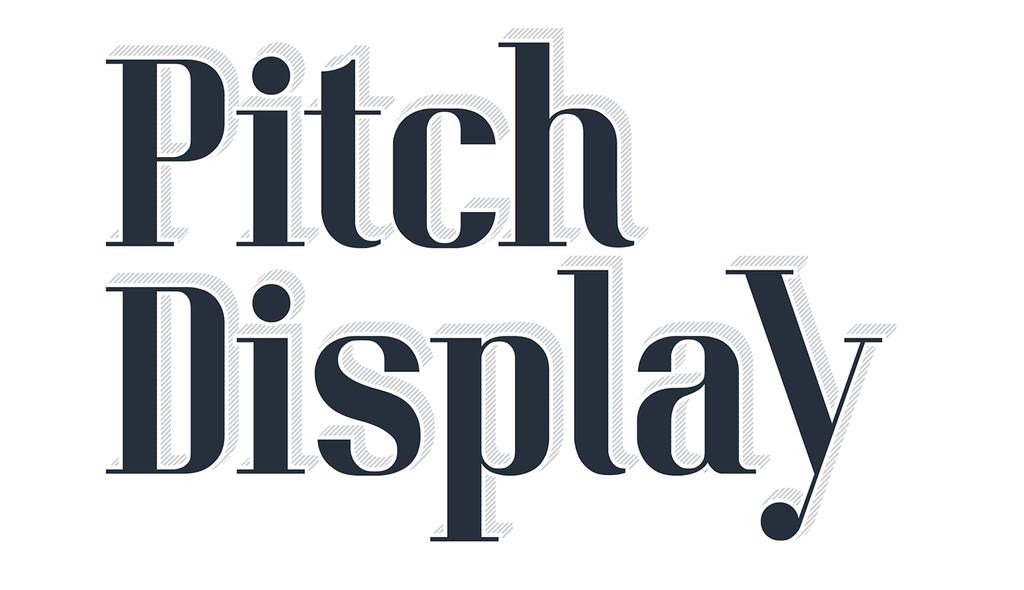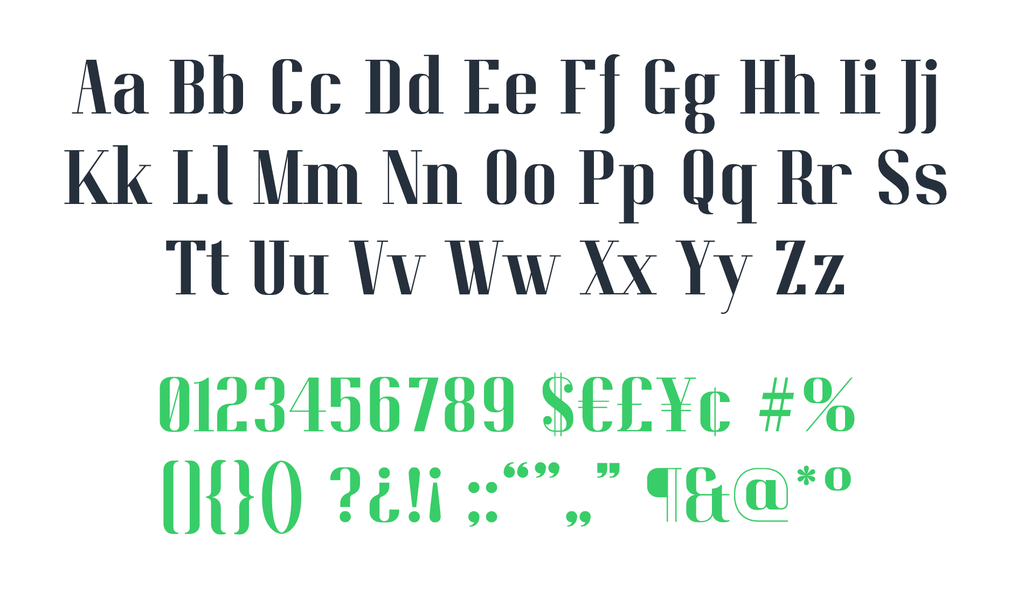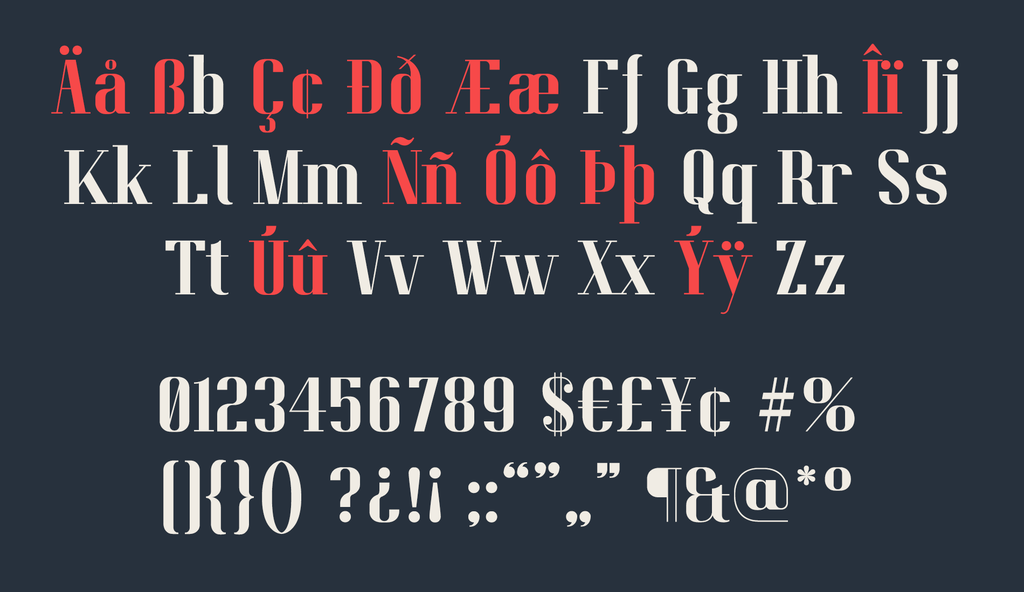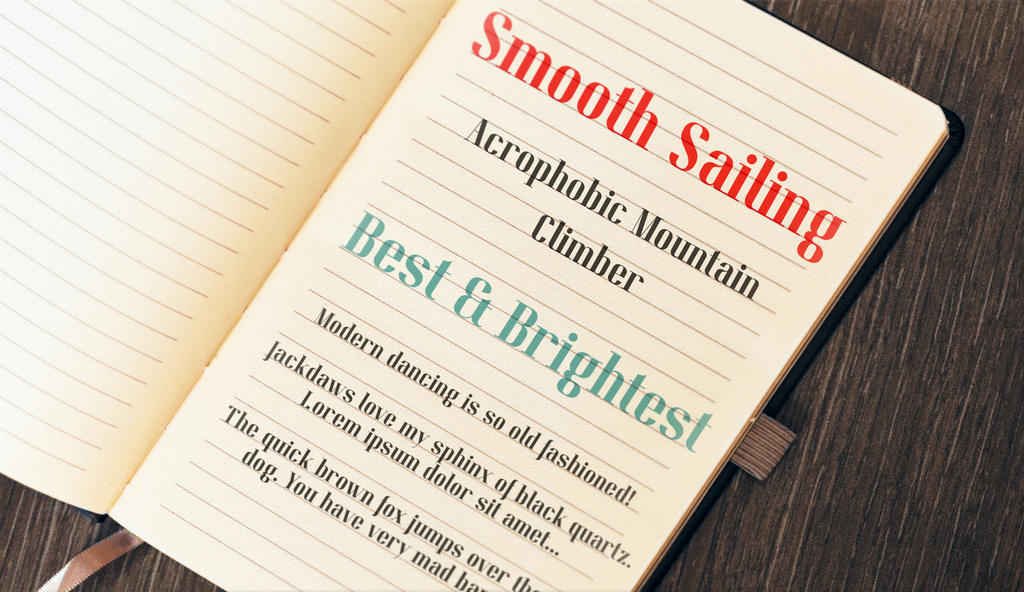
Pitch Display Font
Pitch Display is a condensed modern serif with a geometric feel, ideal for headlines and short paragraphs. Inspired by classic didone type and modern calligraphy, it combines thin, flat serifs. and smooth curves.
The full Pitch family contains 500+ glyphs per font – including Greek and Cyrillic characters and many diacritics – and comes in two versions: Regular and Italic. More info is available at Behance.